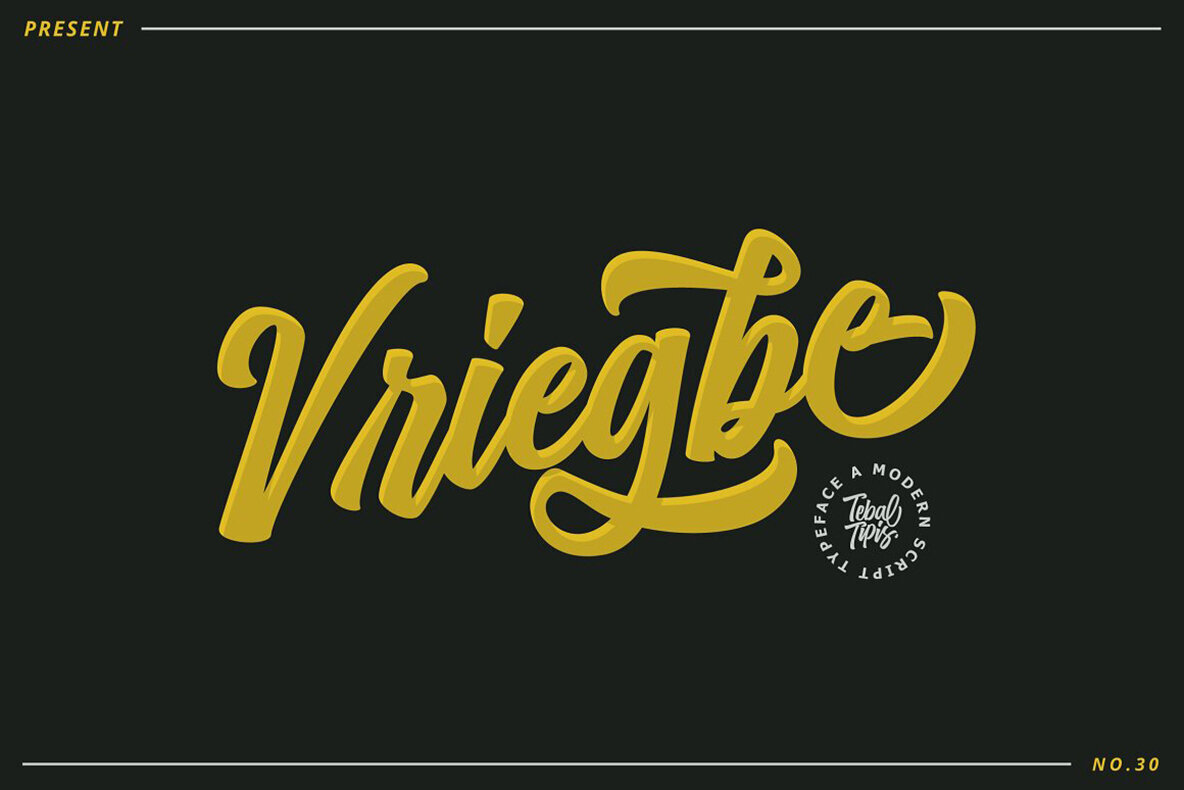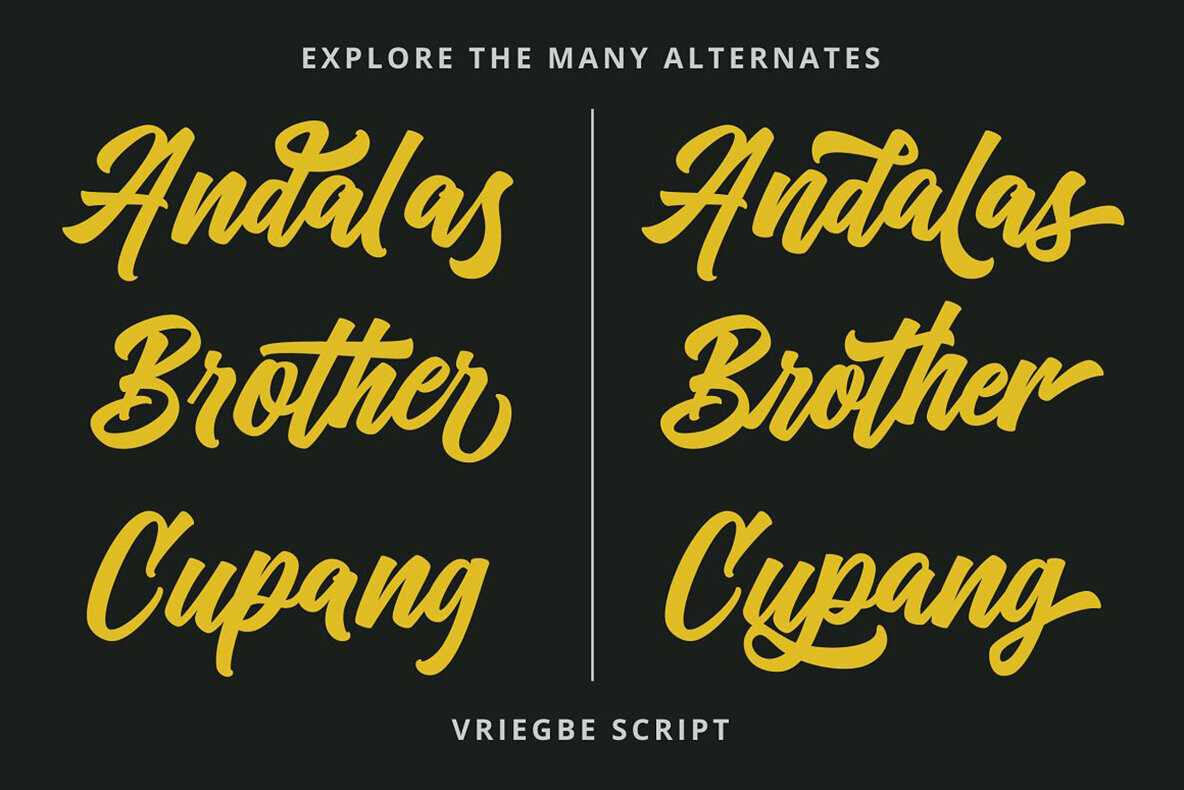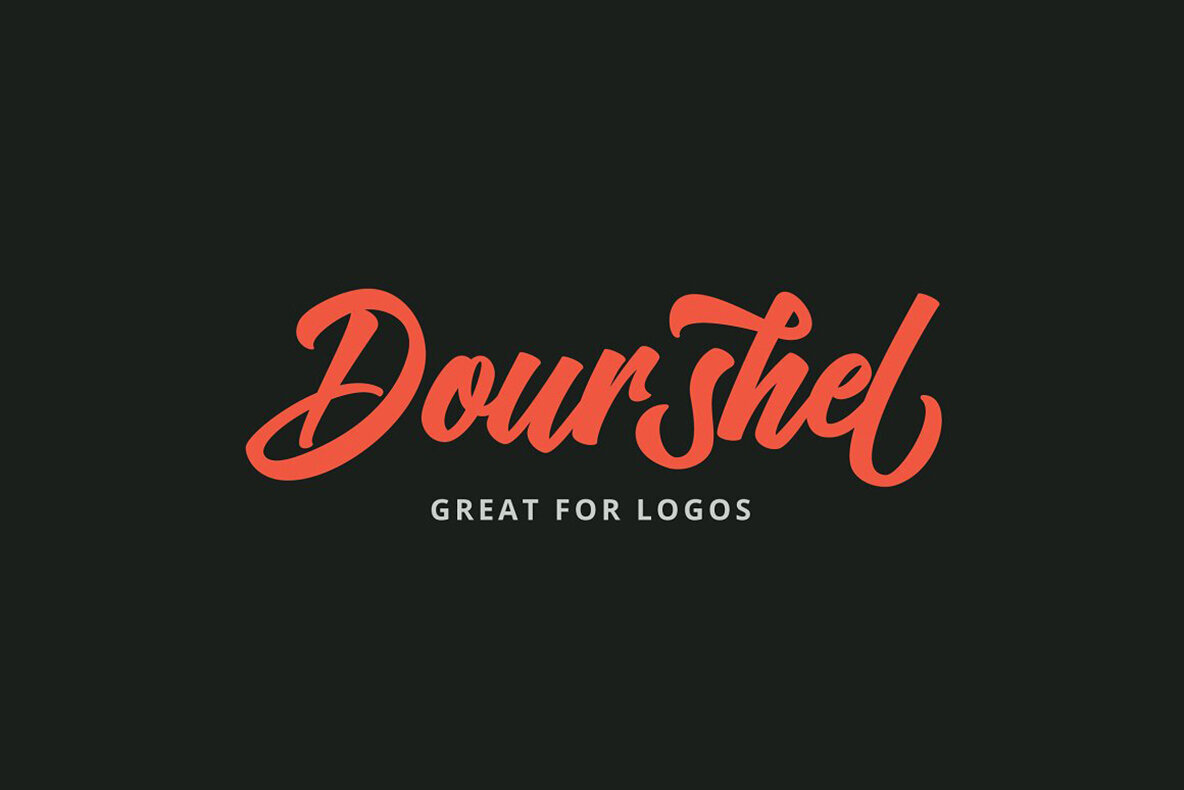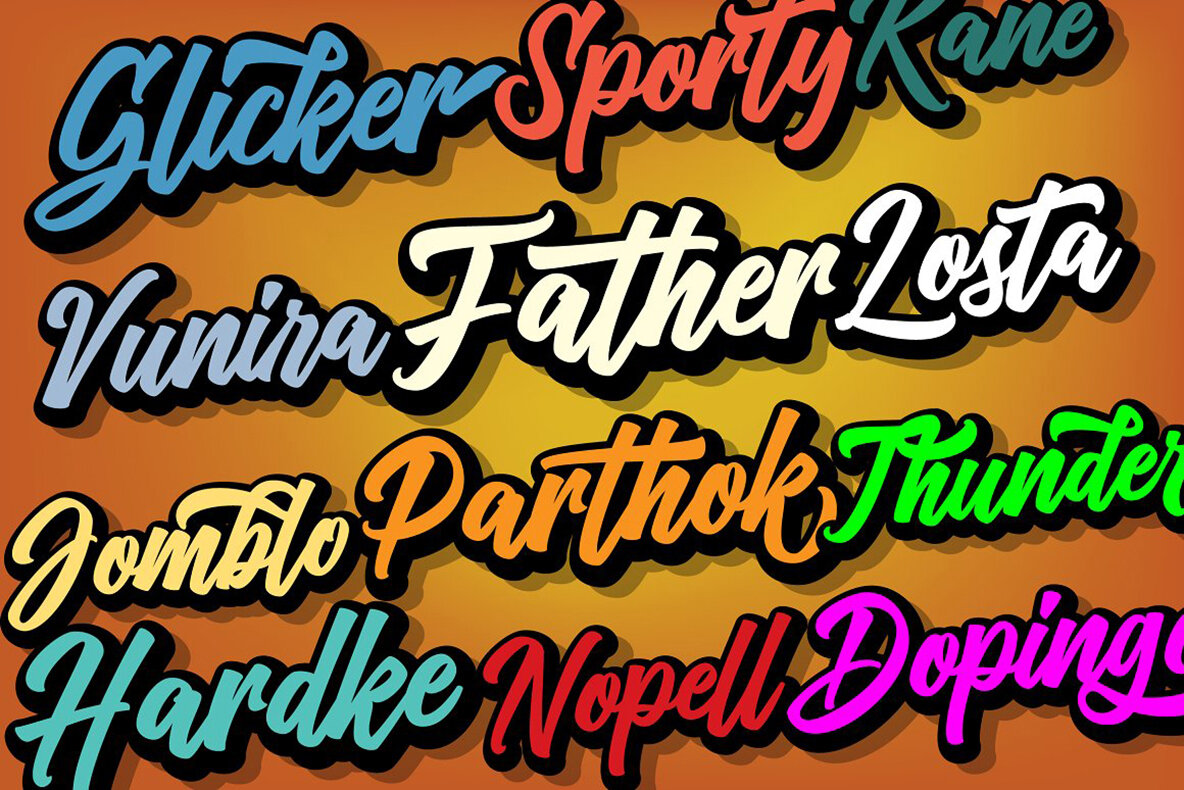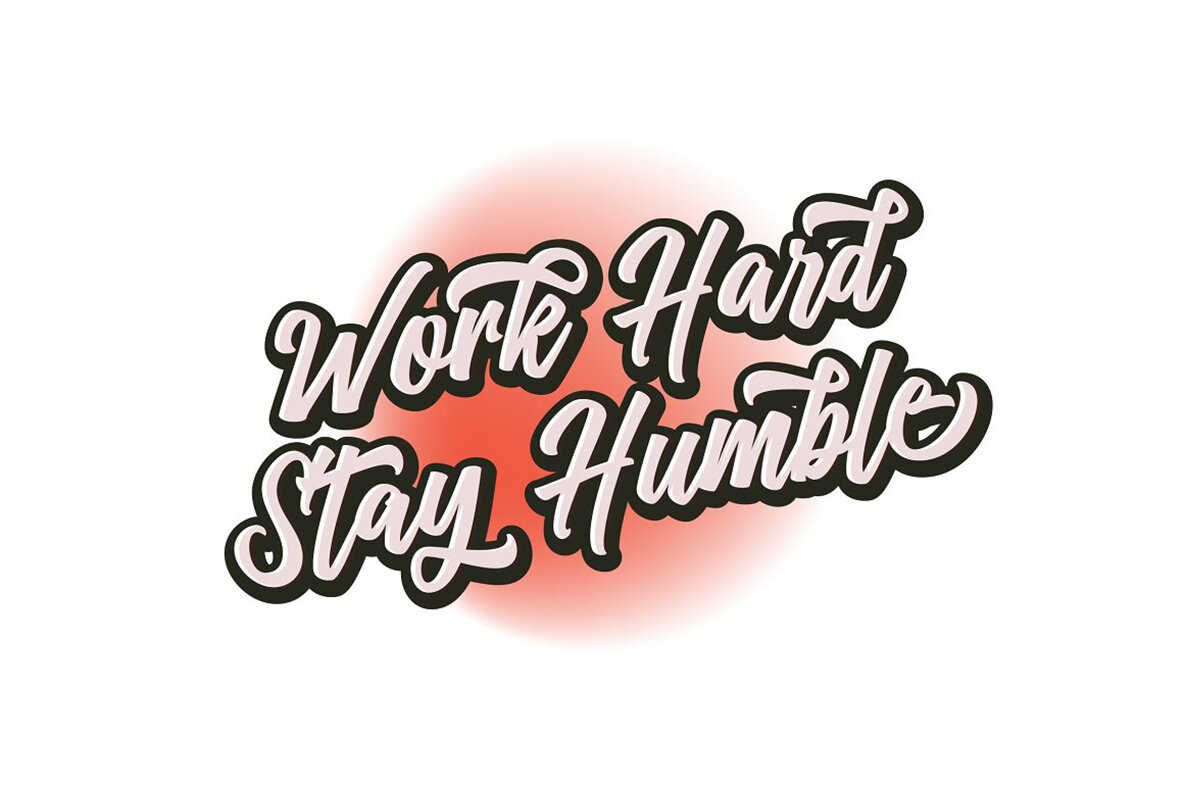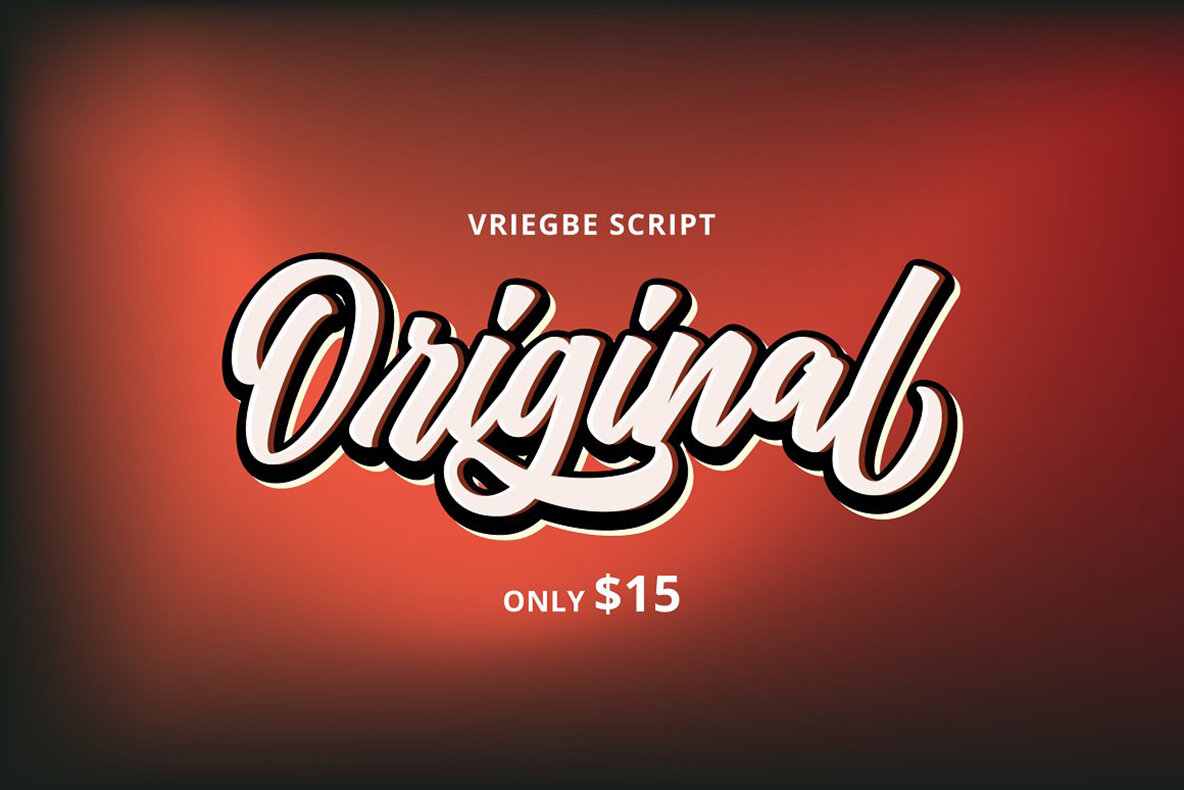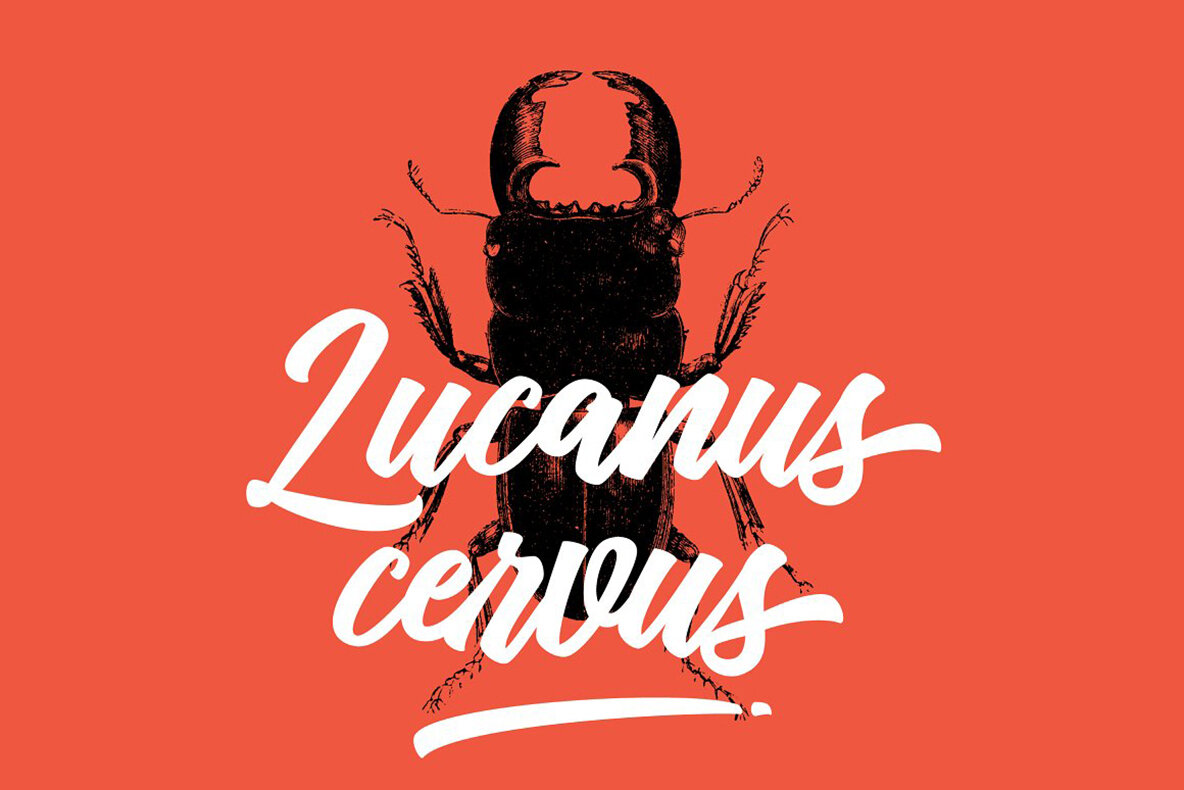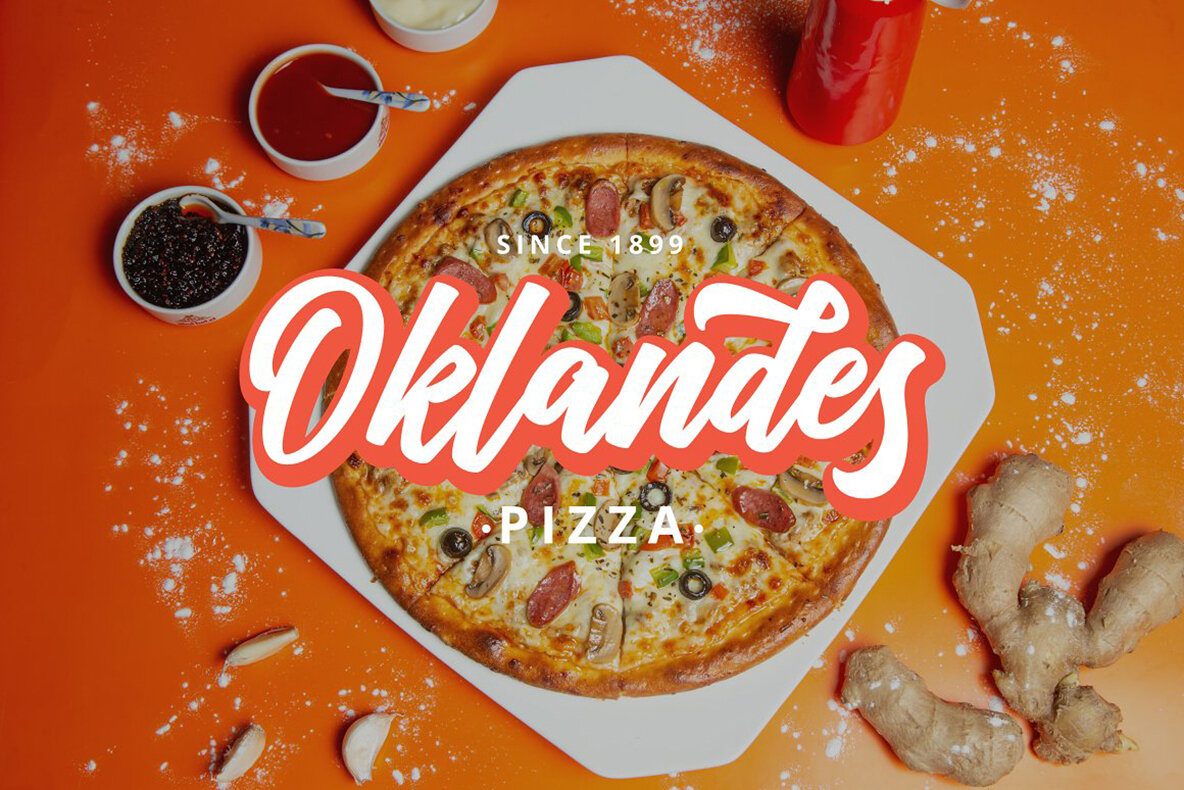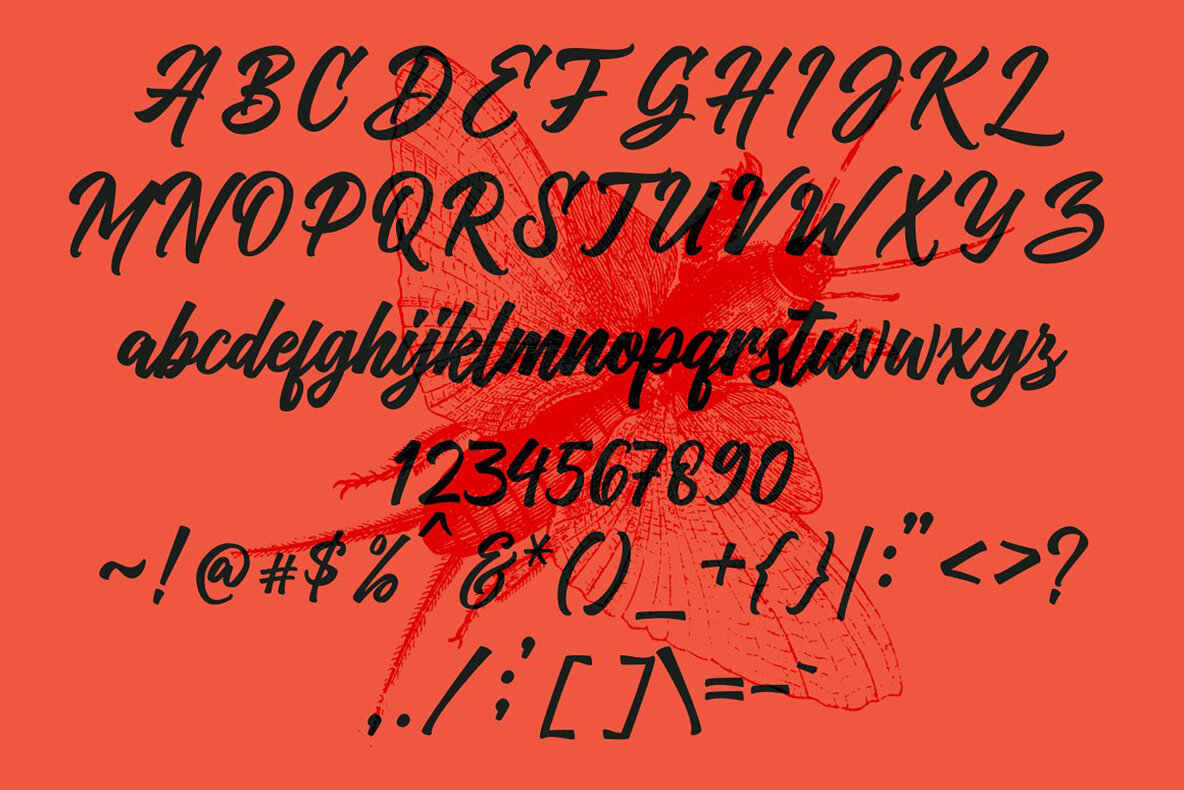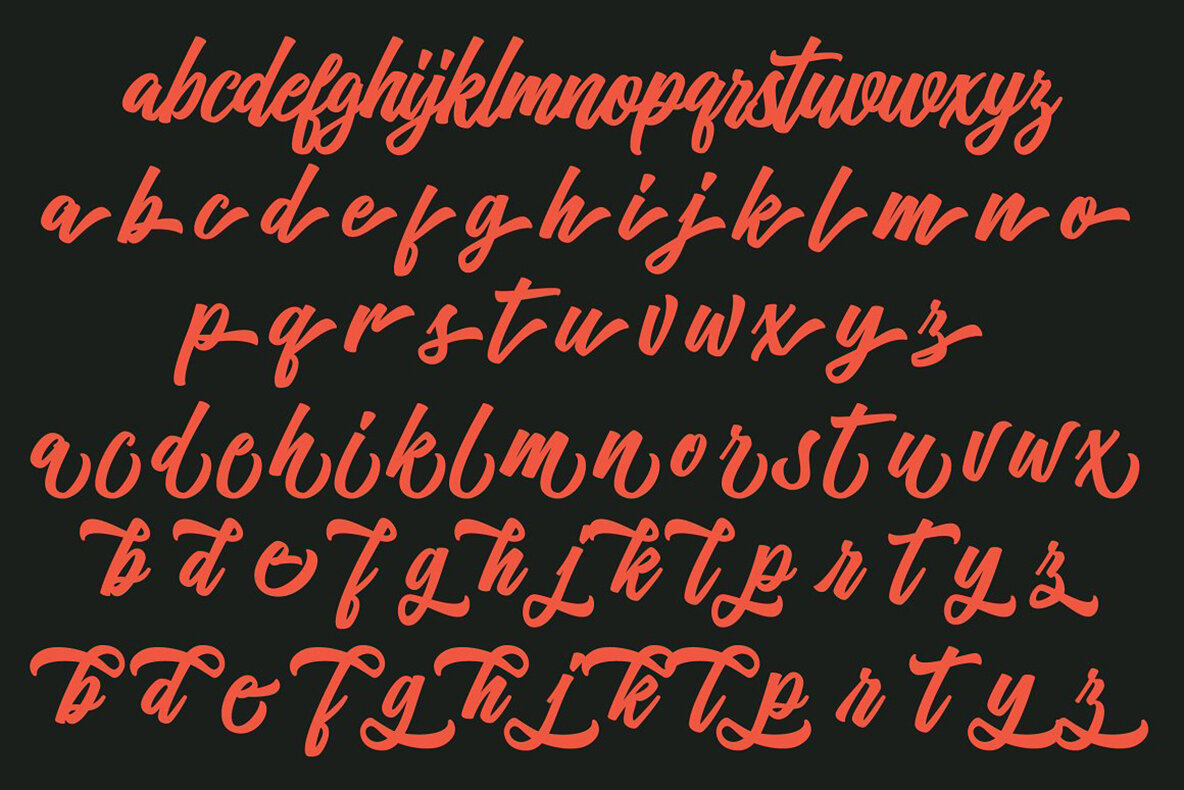
Vriegbe Font
Vriegbe Script
Vriegbe Script is a dynamic typeface that exudes personality, making it suitable for a variety of design applications such as logos, badges, insignias, packaging, headlines, and posters. Its versatile nature allows it to adapt seamlessly to diverse creative projects, providing a unique aesthetic that captivates.
This typeface stands out with its rich collection of alternative characters, which are divided into several OpenType features including Stylistic Alternates, Stylistic Sets, and Ligatures. These features offer designers the flexibility to embellish and personalize their typography, adding flair and customization to their work. To access these advanced typographic options, users can employ OpenType-compatible software like Adobe Illustrator, Adobe Photoshop, or Adobe InDesign. Vriegbe Script empowers designers to explore creative possibilities and achieve distinctive results.